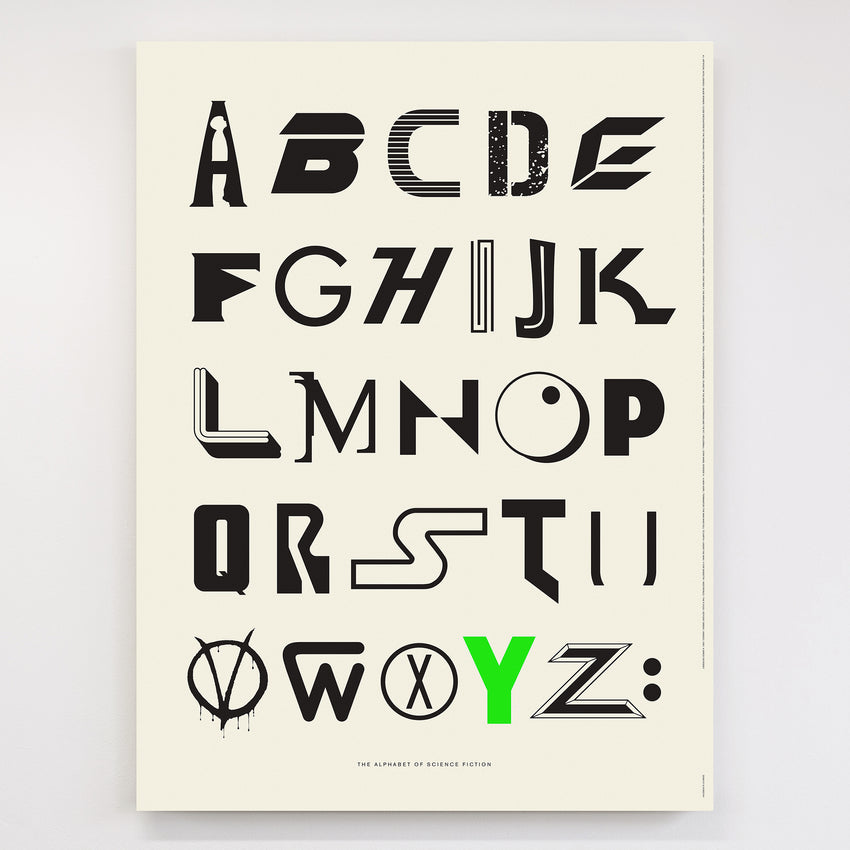
Have you considered adding Espy Sans? It’s the last bitmap-only font made by Apple, used in the Newton and the iPod Mini.
Someone even tried to make a revival that kept its original spirit: Espy Sans Revived
The revival looks promising with its licensing! That’s cute that they reused it in iPod mini.
My dad had a Newton, I remember discovering it one day when I was a kid in its case and playing around with it for some time. Was thinking about it the other day while trying the Vision Headset ![]()
don’t know if this licensing works, but this would be great:
Would like to see more fonts available in the app. Seems like most are all caps styled fonts, would like more traditional fonts that are unique in their own way. A bit more professional edge to them but at the same time nice to look at. Hope to see more font options in the shop soon?
Did you get anywhere with the Game Boy font? ![]()
You’re definitely doing the right thing in checking the licensing for the font - I’m just glad to hear it’s still under consideration! Please don’t think I’m nagging for that font - I totally understand you must have a massive to-do list with all of the requests coming in and it’s relatively small-fry by comparison. But it would really make that loadout complete, so, y’know… ![]()
I think it would be cool to have fonts by theme.
I really like (and have one) poster which is all about the Alphabet of Sci-Fi.
Would be cool to have this kind of approach by theme as a font
There is a bunch more here: Alphabet of Sci-Fi - A-Z of Sci-Fi Print – Dorothy
Do you mean mixing fonts in one like that? Well, I think it would be possible if there was someone making a set like it that’s licensable etc.
It does give me ‘blackmail letter’ vibes, like cutting up and pasting letters together, font like that would be a fun one as well.
Yeah. Those letters represent the movies, but there is one for music and such. As you do thematic shop days I think it would be fun ![]()